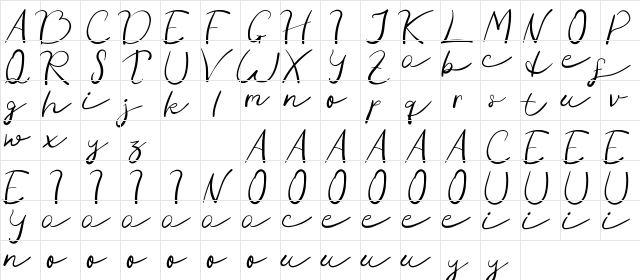
Shadow Over Demo Regular
Design Context for Shadow Over Demo Typeface
Shadow Over Demo is built around its visual character rather than neutral utility — its distinctive forms are designed to make an impression at display sizes.
Font Pairing: Pair with a clean neutral sans-serif for body copy to let Shadow Over Demo's character lead without overwhelming the composition.
Pro Tip: Use Shadow Over Demo exclusively at display sizes — it was designed to be seen, not read at length. Let a neutral companion handle body copy.